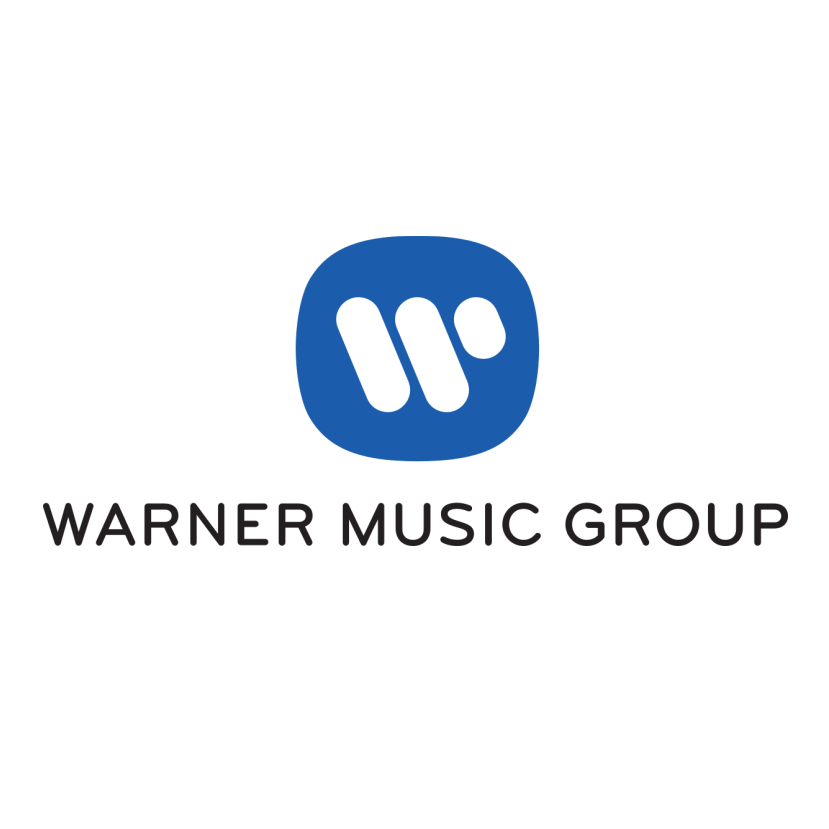
Warner Music Group Font
EntertainmentWarner Music is a multinational entertainment and music company founded in 1958, with a diverse portfolio of recorded music, music publishing, and merchandising.
The text in the logo appears to have been styled using Bryant Bold from Process Type Foundry. This font was first introduced in 2002 and has since undergone improvements, including additional character sets, weight variations, and width options.